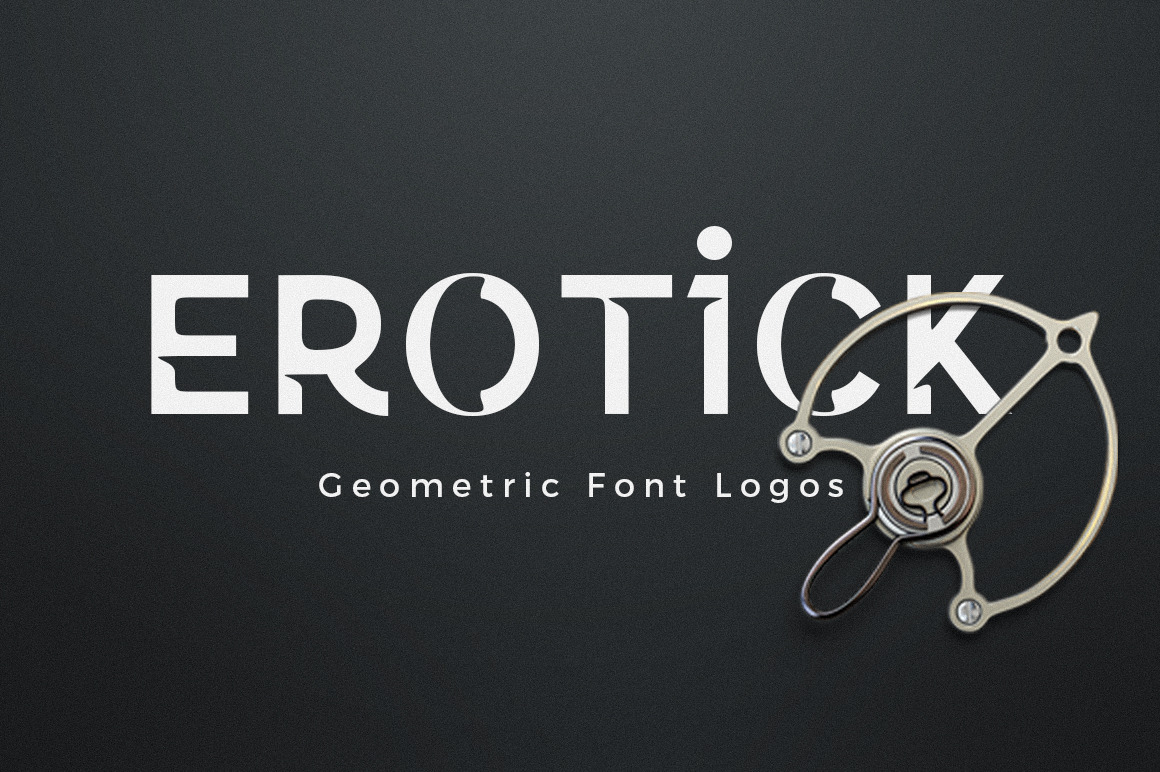
Erotick - Geometric Logo Font
Erotick is a new geometric font for a futuristic minimalist logo design, officially my favorite. with this pretty all-caps case it's very versatile and looks great in any context. You can match custom alternatives that will make your designs stand out even more! Erotick is ideal for branding, advertising, logos, magazines, headlines and more, while its simplicity allows it to be a useful family for many occasions.